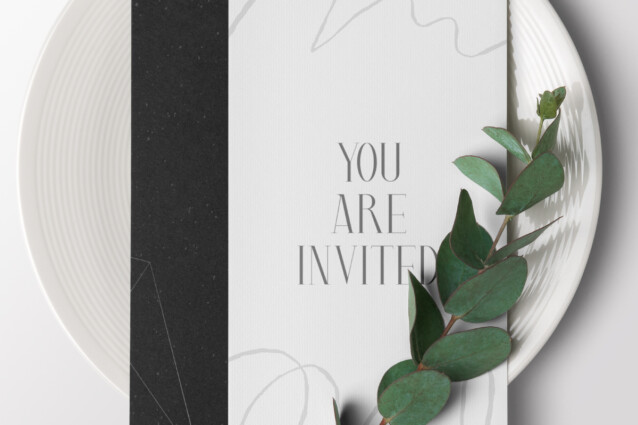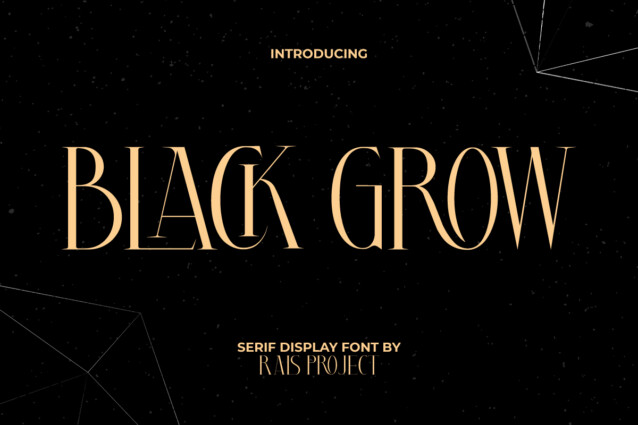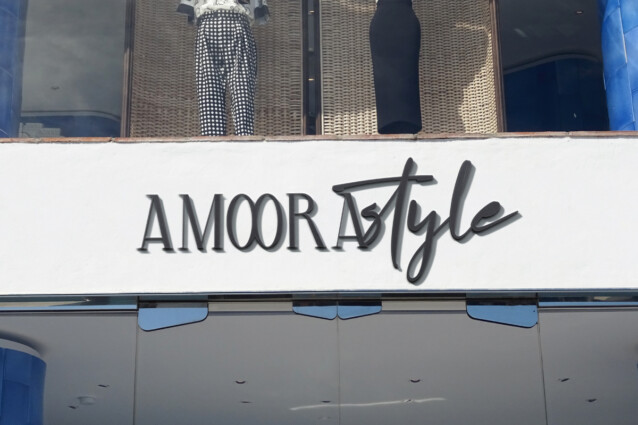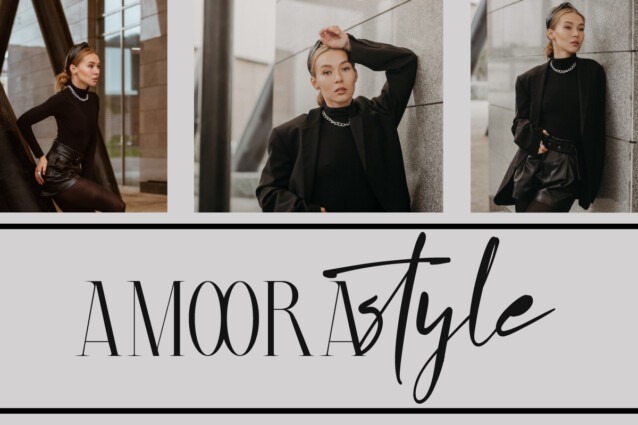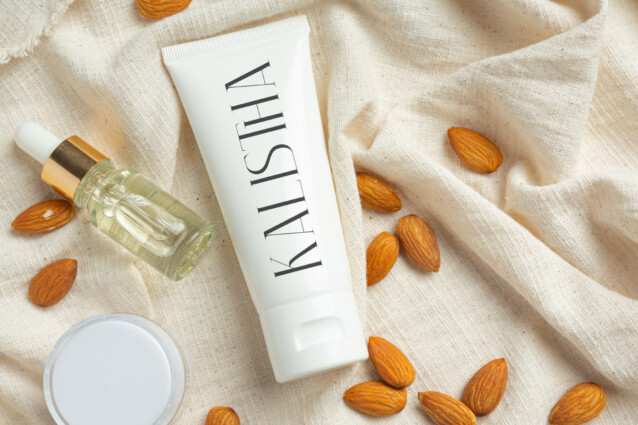
Black Grow Serif Font
Black Grow Serif Font is an elegant and classic serif display font with stunning style. This font can make your design look luxurious and can be combined with other types of fonts perfectly. It will be good for any designs, such as brand image, custom design, flyer, invitation, label, marketing material, menu, poster, product packaging, quote, screen print, signage, stationery, website page, and more!
RaisProject